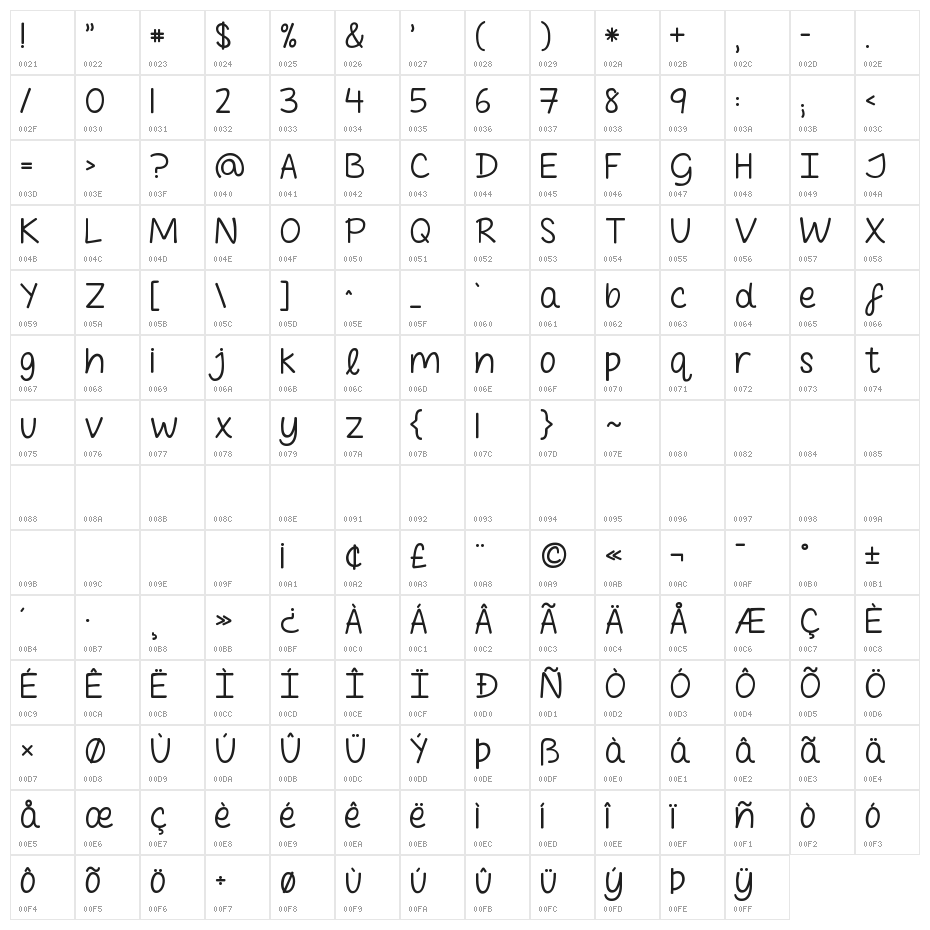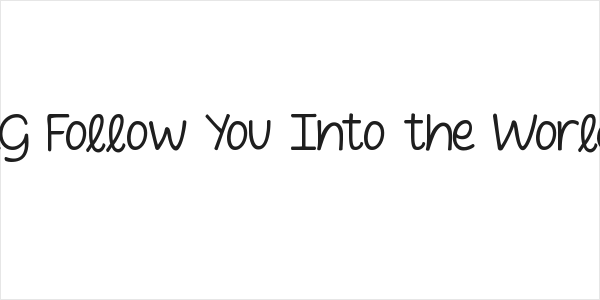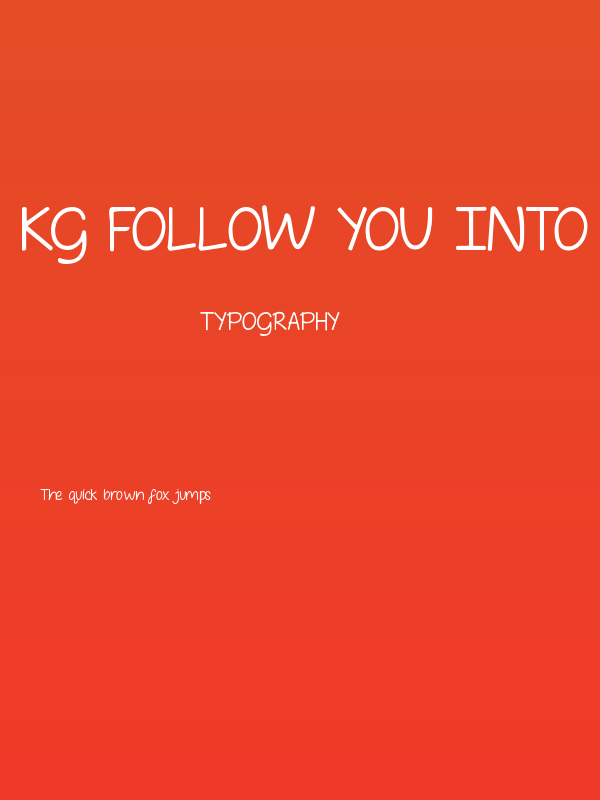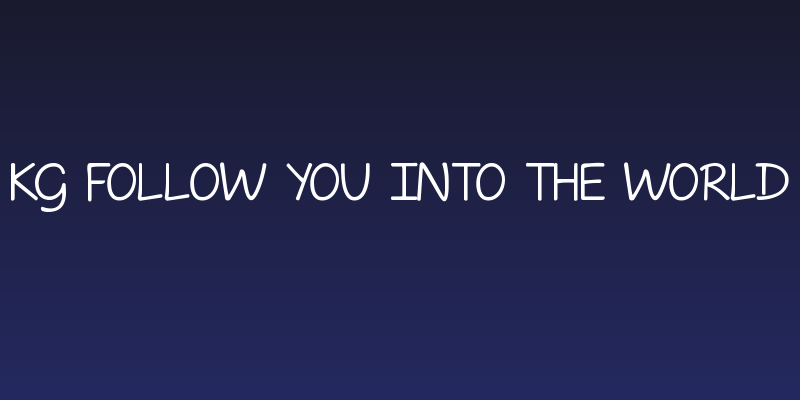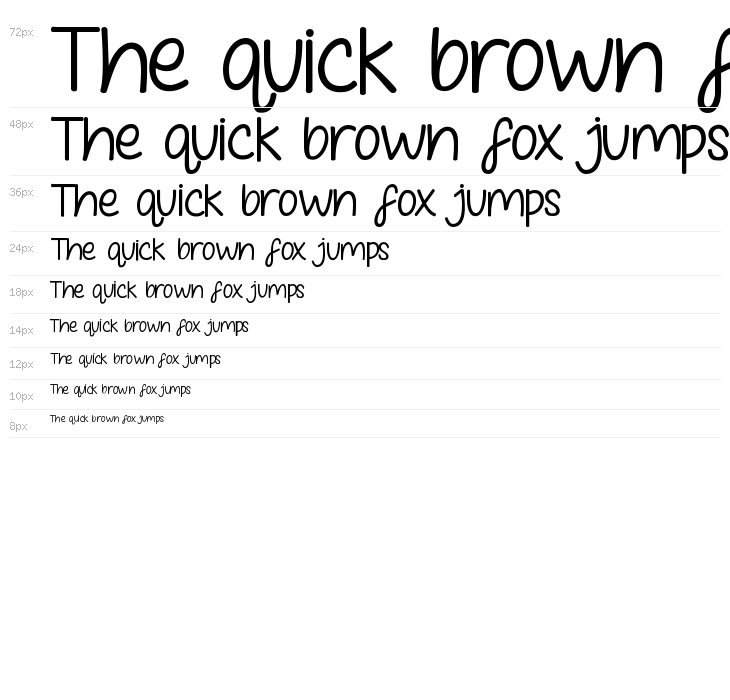
KG Follow You Into the World Font
KG Follow You Into the World Description
This font features a playful and whimsical handwritten style, characterized by smooth, rounded edges and a consistent stroke width. The letters are slightly slanted, giving a casual and friendly appearance. The uppercase letters are bold and prominent, while the lowercase letters maintain a uniform height, enhancing readability. Numbers and special characters are crafted with the same playful touch, making them suitable for a variety of creative projects. The overall design is approachable and versatile, perfect for adding a personal touch to any text.
| Use Case | Headlines, Logos, Informal text |
| Proposed Projects | Ideal for children's books, greeting cards, playful branding, and social media graphics. |